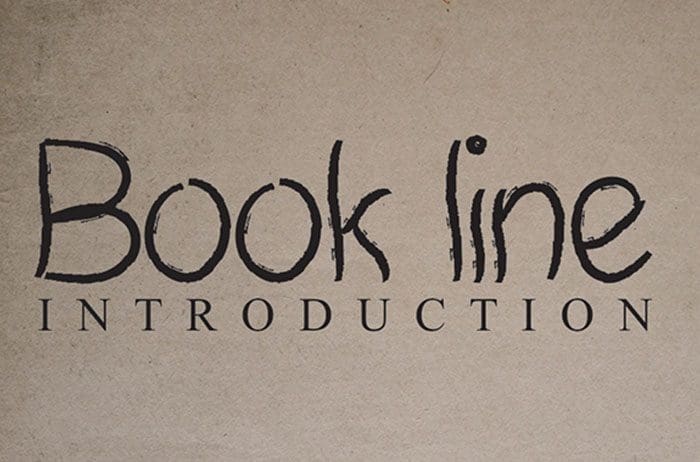
Book Line Brush Font
Book Line brush font results out of a stunning pairing of a brush pen and pencil that makes it look incredibly endearing and authentic. Use this gorgeous and unique display font to bring any DIY project to life! Designed this font by Andika Studio. You can also search more freeĀ Brush Fonts. Thanks!